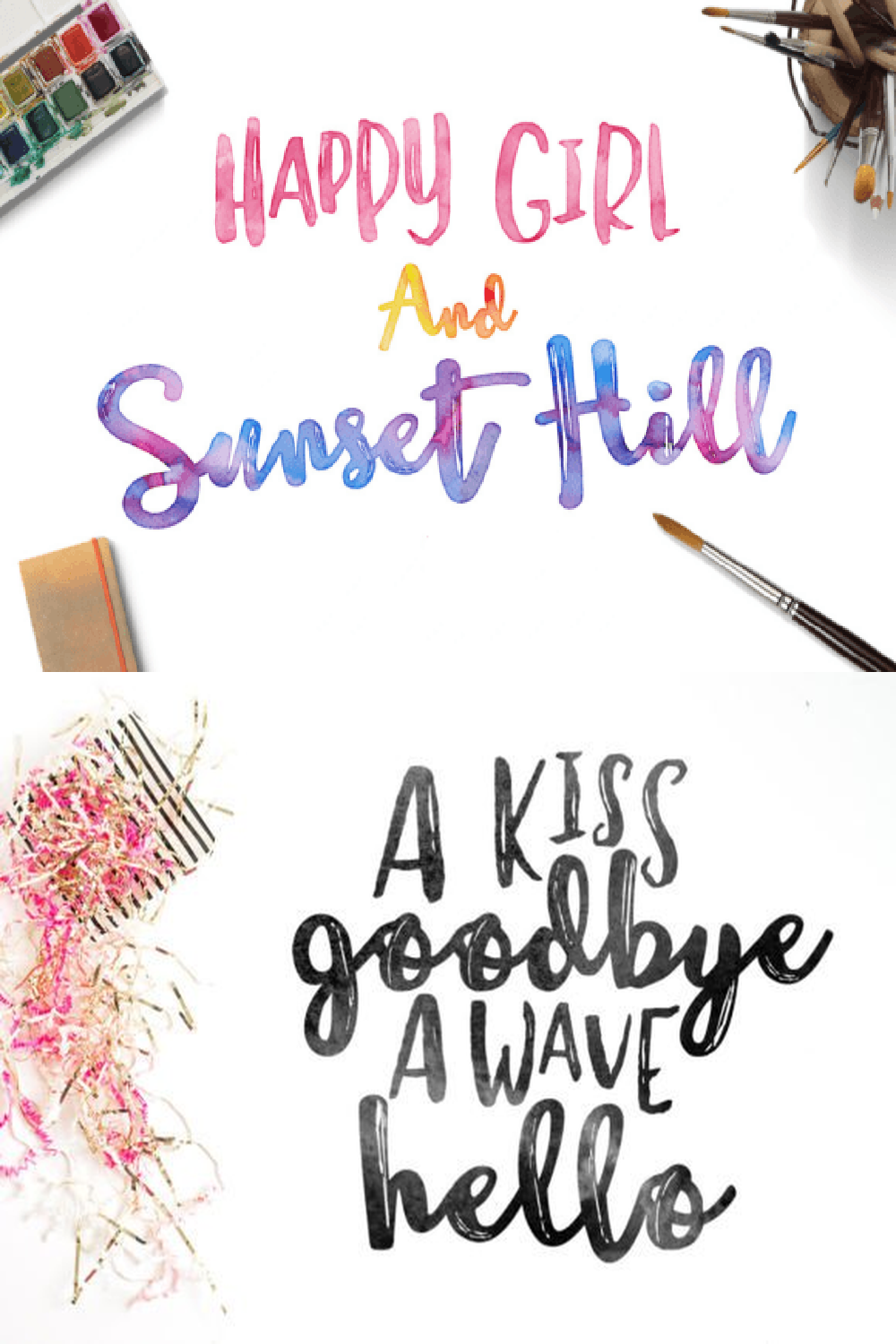
Happy Girl Font
About the Happy Girl Font
The Happy Girl Font is here to transform your projects with its distinctive character and style. Sunset Hill is a script font originally made with a brush pen. There are two versions of this font included – Sunset Hill (brush) and Happy Girl (brush). There are a few alternates and ligatures in this font too!
Happy Girl, with its hand-brushed texture, is ideally suited for projects needing a touch of casual elegance. It works exceptionally well in logos, short headlines, invitations, and social media graphics where its playful yet refined nature shines. Avoid using it for large blocks of body text or UI elements; its expressive brushstrokes are less legible at smaller sizes.
Pairing Happy Girl with a clean sans-serif like Montserrat or a geometric sans-serif like Futura provides a strong contrast, balancing its organic feel with modern structure. For a warmer pairing, consider a serif like Playfair Display, which complements its handcrafted charm.
The font’s overall personality is friendly and approachable, yet sophisticated. It’s perfect for brands targeting a younger demographic or those wishing to convey a sense of handcrafted quality and personal touch.
Happy Girl Font Usage Examples
Happy Girl Font Example